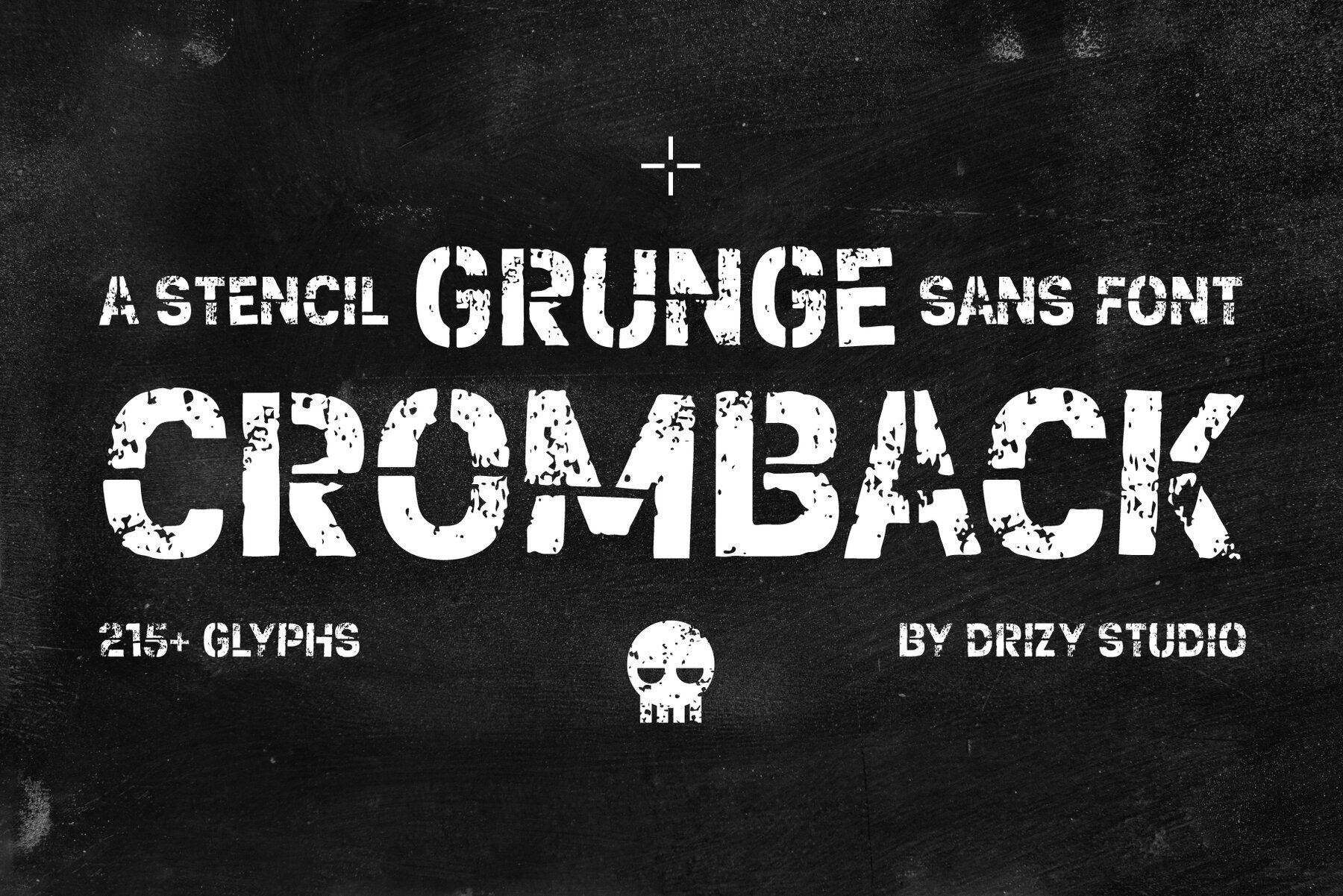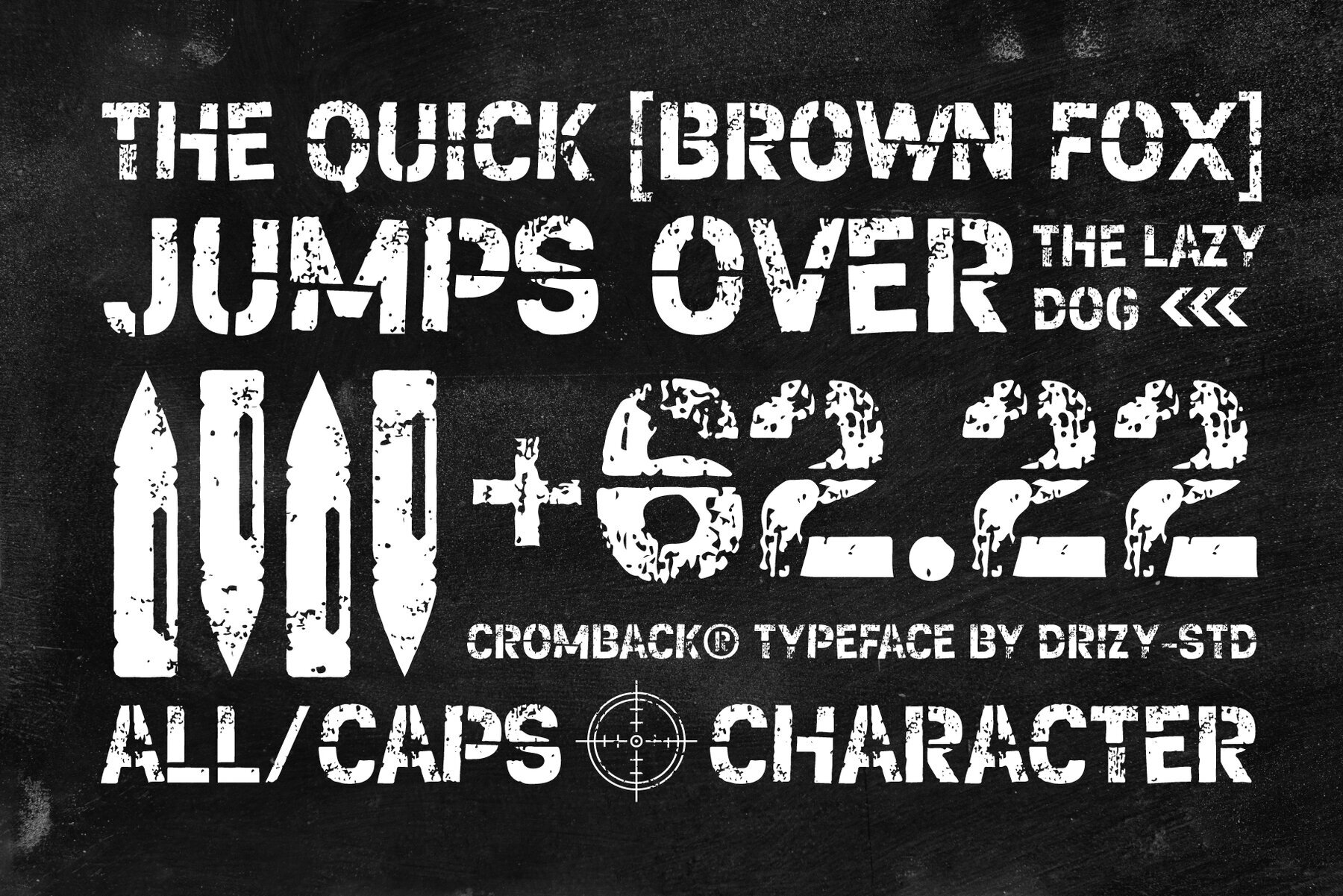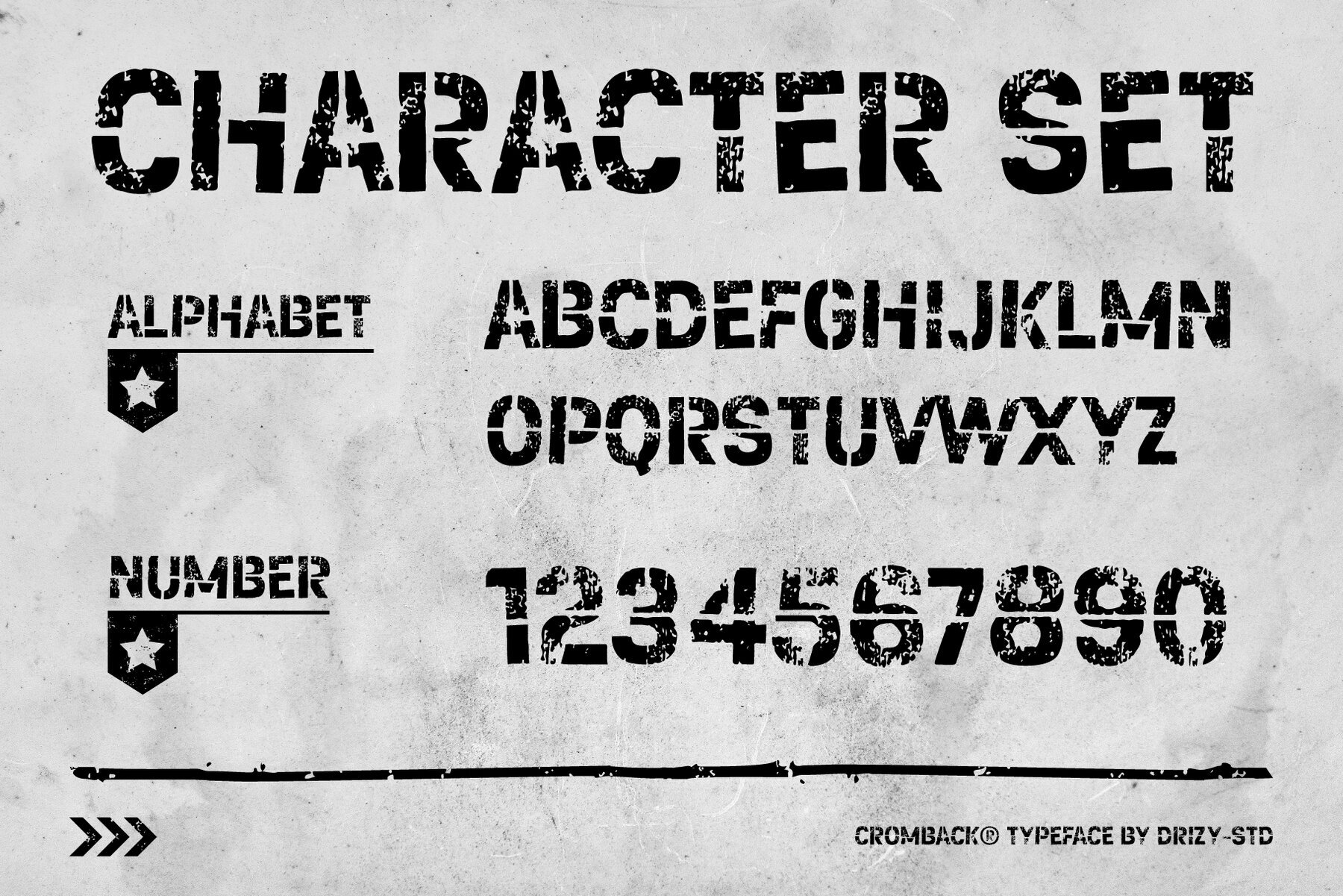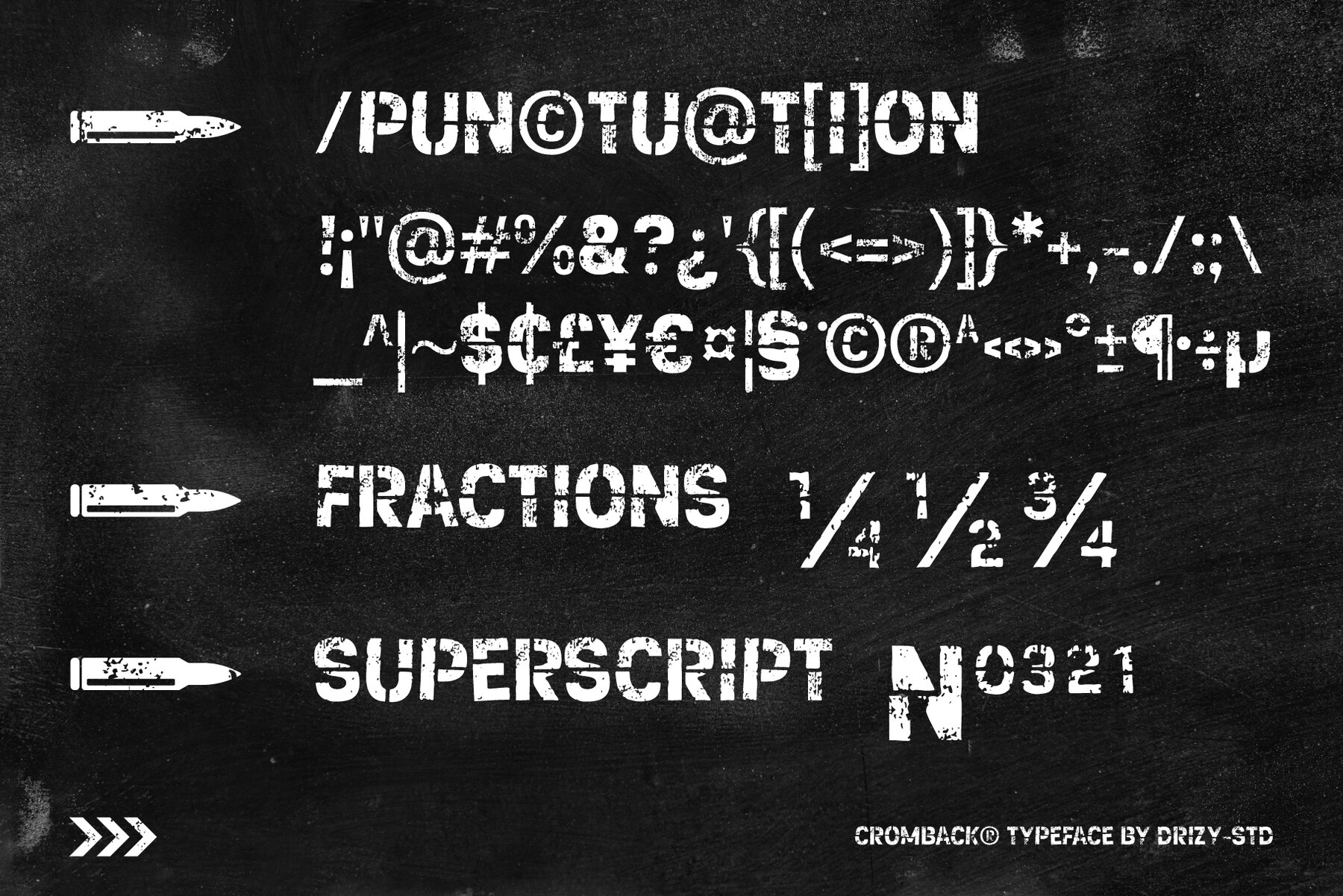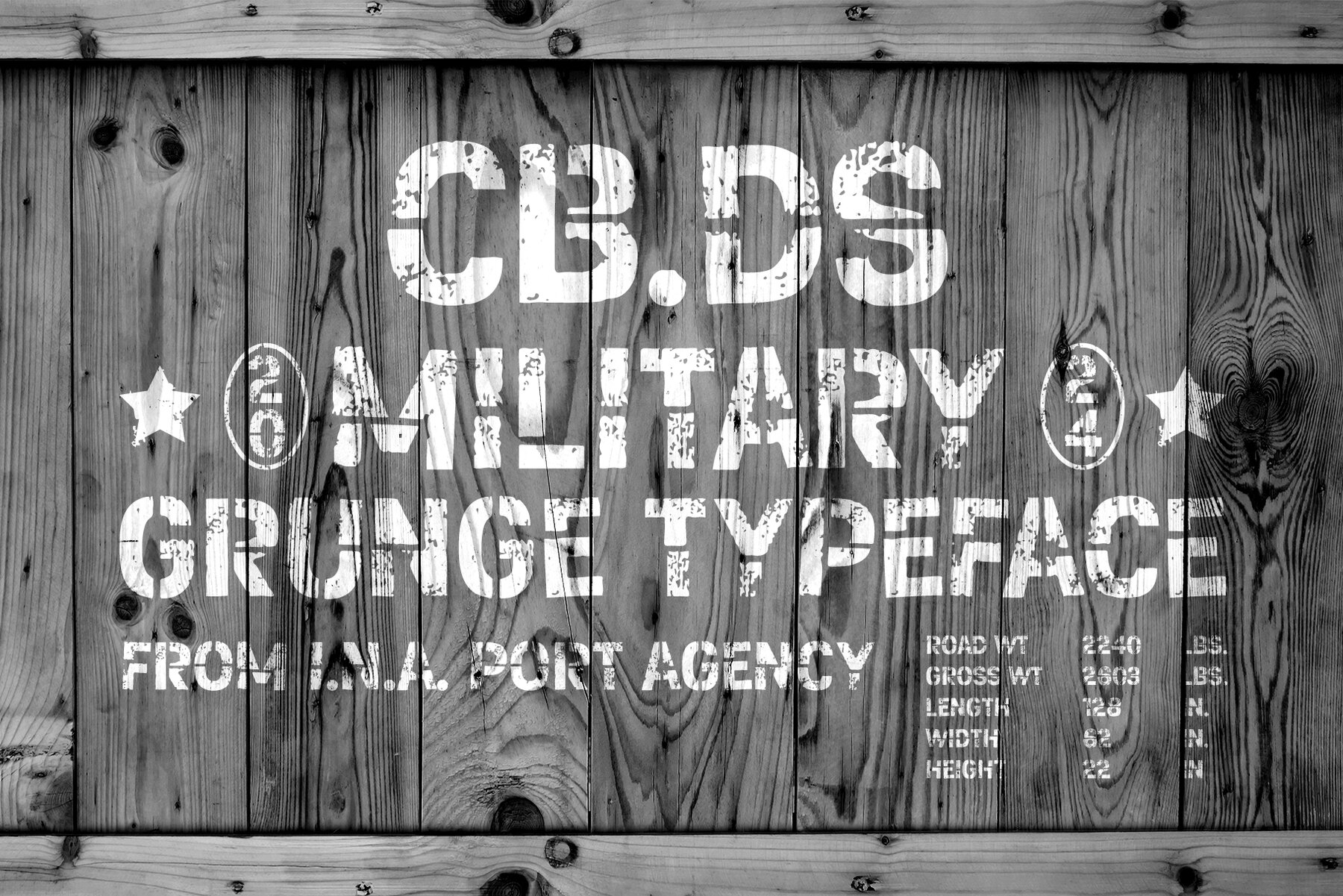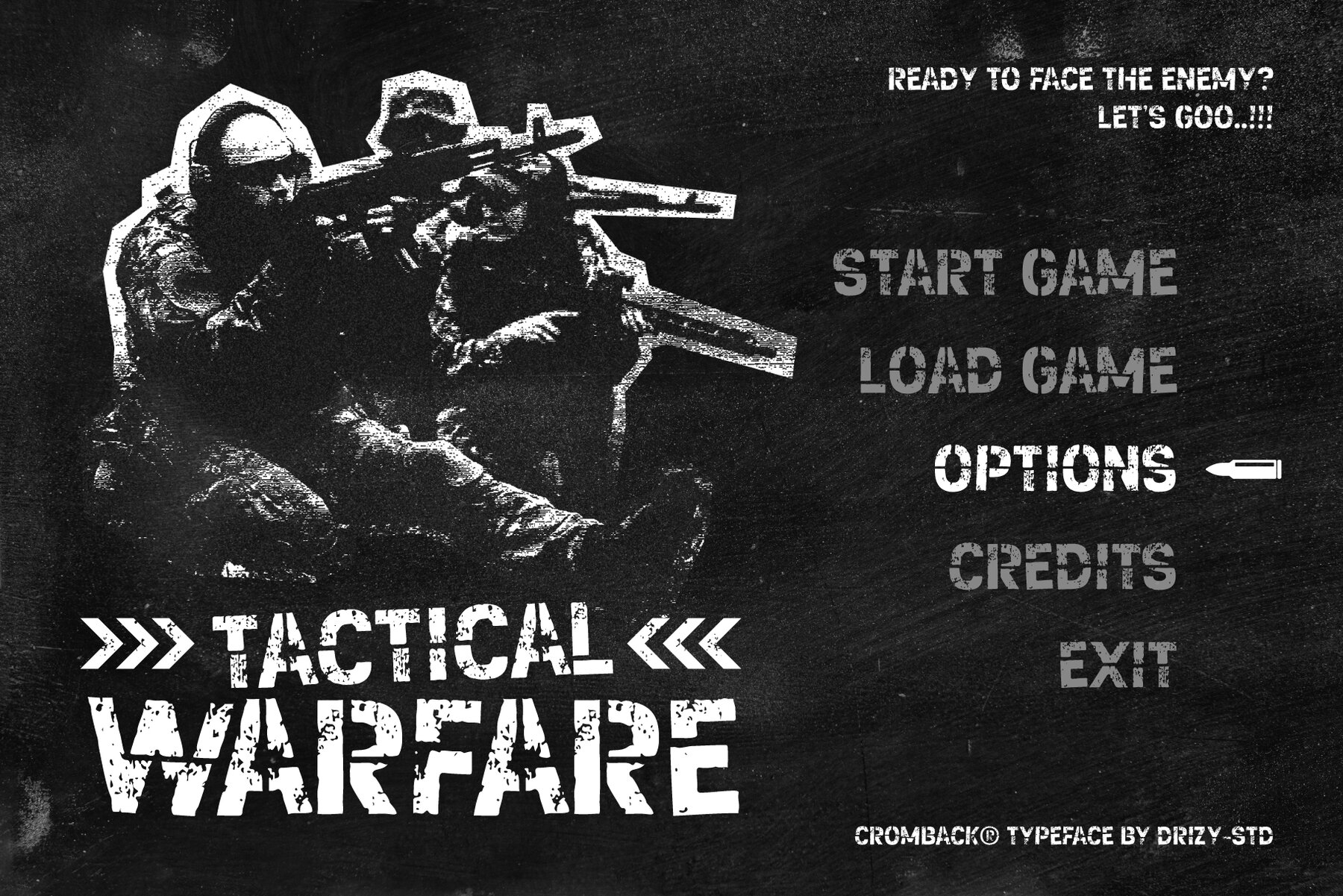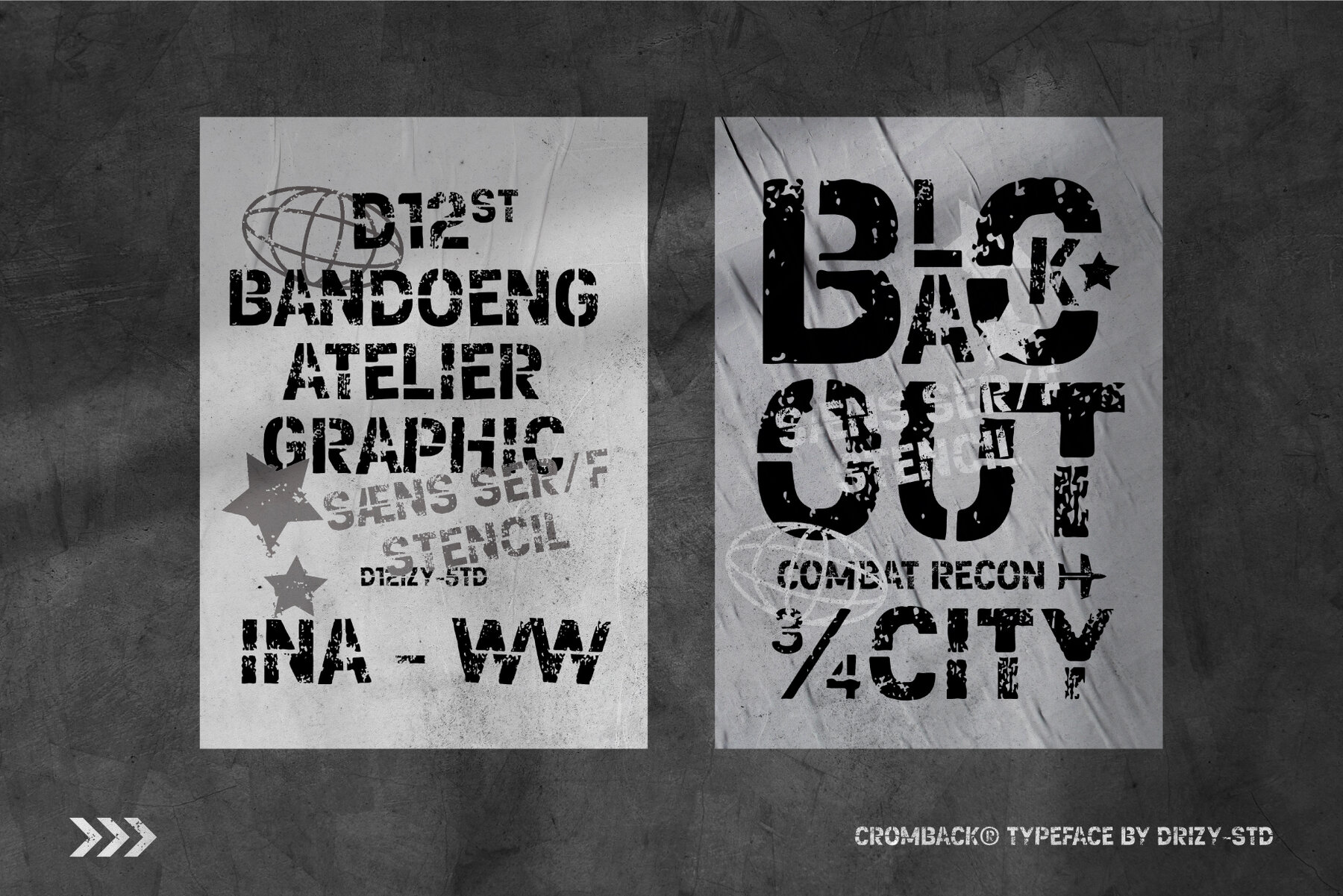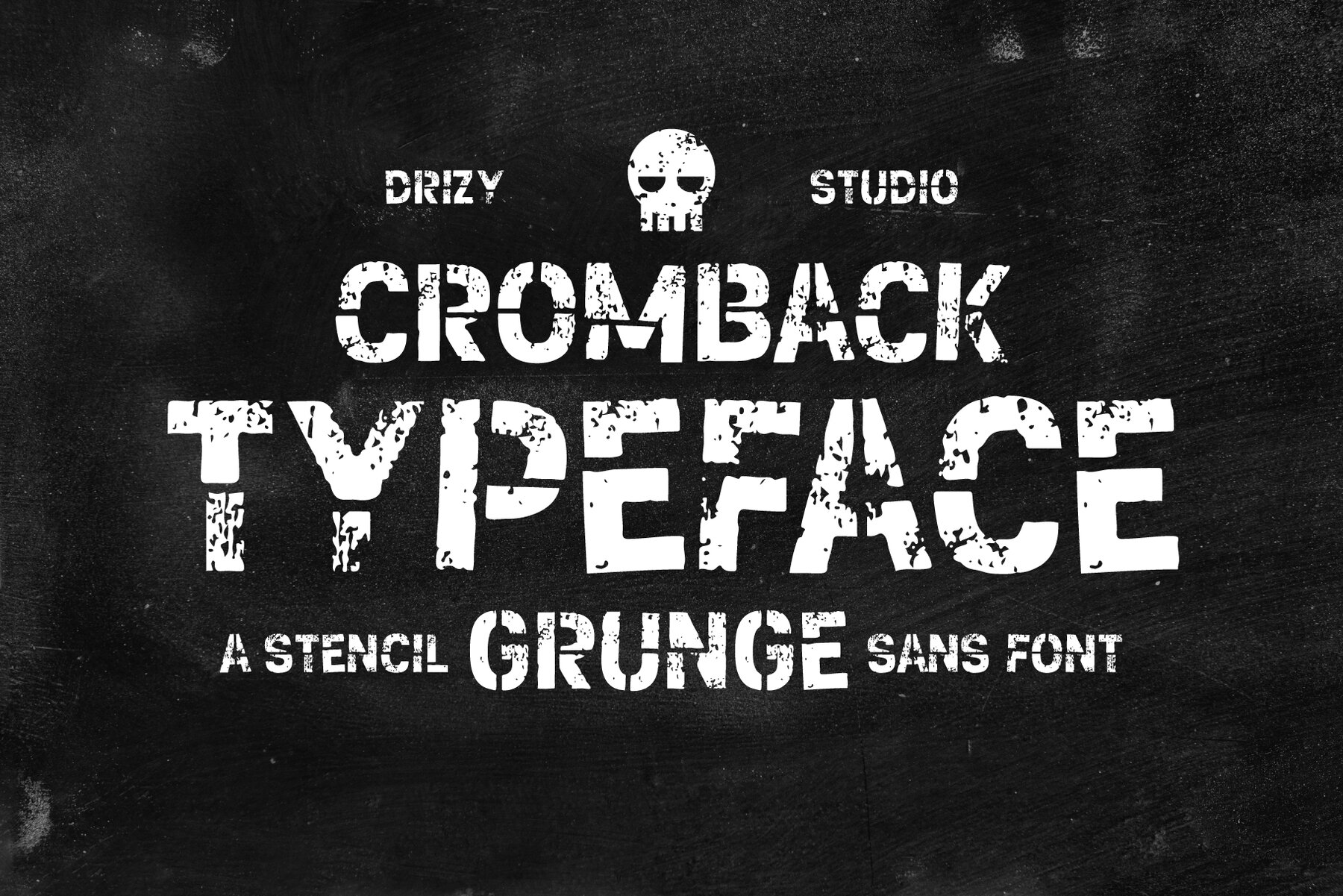
Cromback Font
Cromback Grunge
Cromback Soil is a stencil grunge sans serif font that exudes a rustic and earthy aesthetic. Featuring textured elements reminiscent of soil and rough terrain, this typeface boasts a natural, organic appearance. Each character showcases uneven edges and irregular shapes, enhancing its handcrafted feel. Cromback Soil is perfect for projects aiming to convey authenticity, nature, or rustic charm. Its unique design makes it an ideal choice for branding, packaging, posters, and environmental themes.
Key features of Cromback include an all-caps character set, punctuation, numbers, and multilingual support. Its versatility and distinctive style can significantly enhance various design applications, making it a valuable addition to your typographic toolkit.